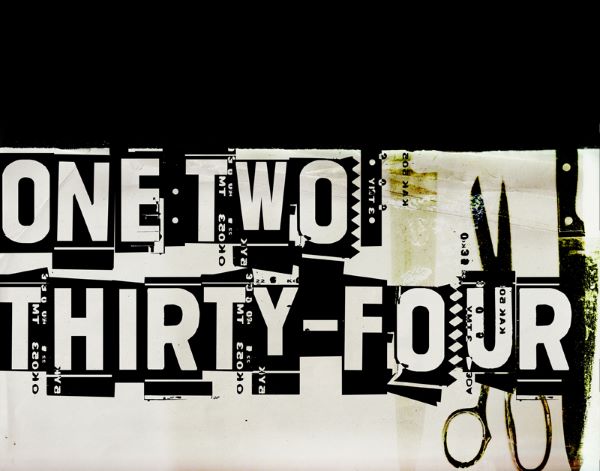
One Two Thirty-Four Font
One Two Thirty-Four Font is a Punk Font by Junkohanhero — a rough, bold all-caps display typeface that brings a riotous creative energy to any design format it enters. Despite having no lowercase letters, its raw, industrial character communicates powerfully and directly, making a bold statement that challenges conventional design thinking with every single letterform.
It excels on announcements, urban posters, advertisements, collage art, and any branding project that needs to project an uncompromising, street-level attitude. Browse our full library of Free Fonts and discover more bold, expressive typefaces from independent designers worldwide.